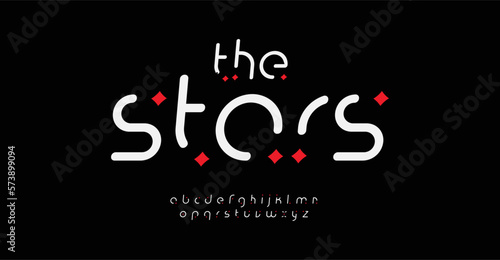
Digital data tech alphabet, stars sans serif round letters, minimalist futuristic font for space galaxy logo, future headline, creative hud typography, minimal fashion type. Vector typographic design